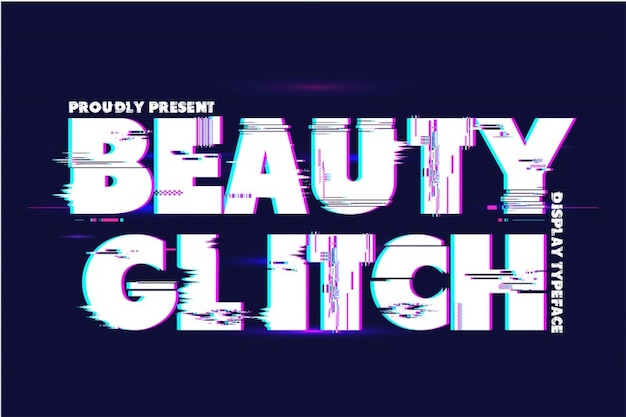
Beauty Glitch Font
177Studio
"Beauty Glitch" is a cutting-edge font that seamlessly merges aesthetics with a tech-savvy edge. Each letter features distorted lines and irregular shapes, reminiscent of digital glitches and computing errors, capturing the essence of a hacker's world. Its bold, futuristic design is perfect for projects focused on technology, cyberculture, or any creative endeavor that embraces the beauty found in imperfection.